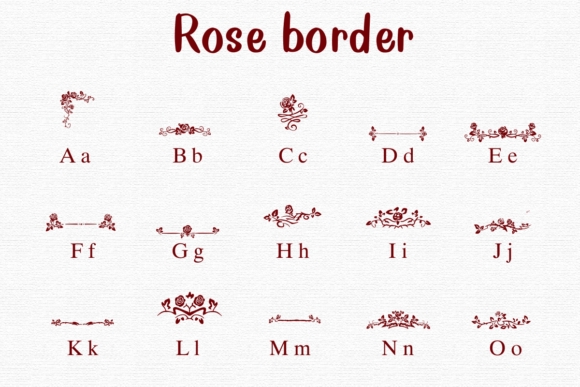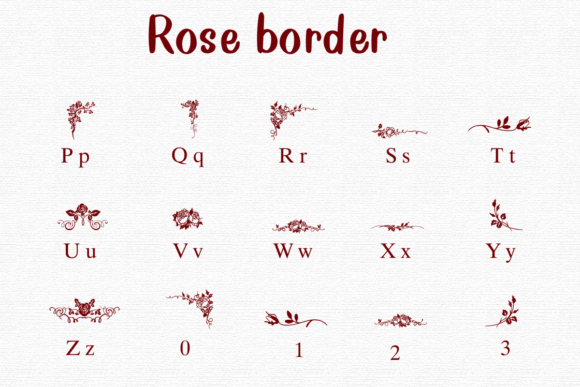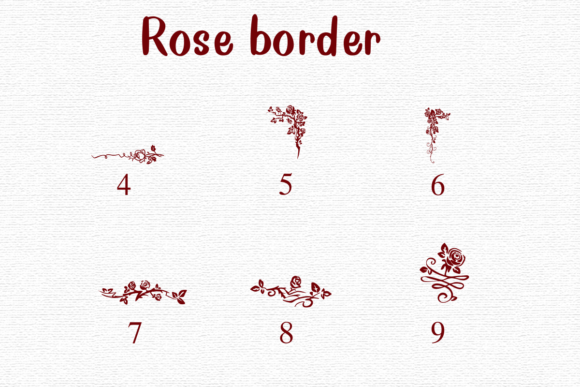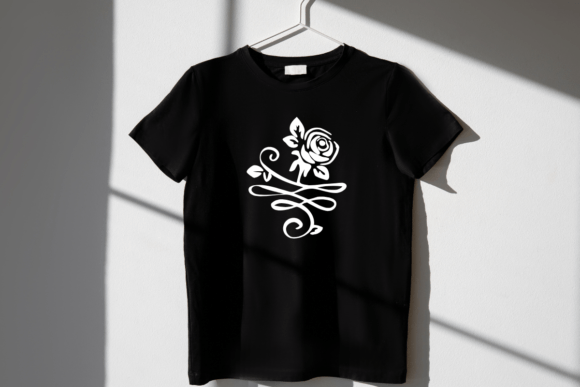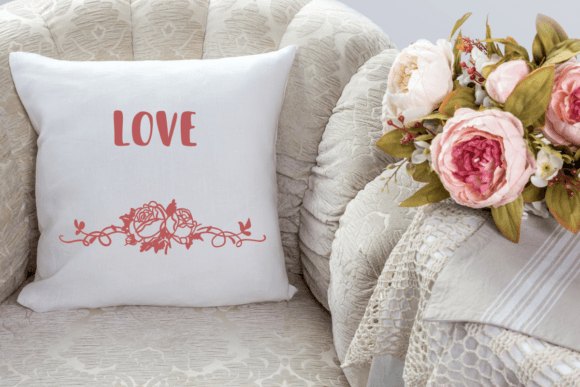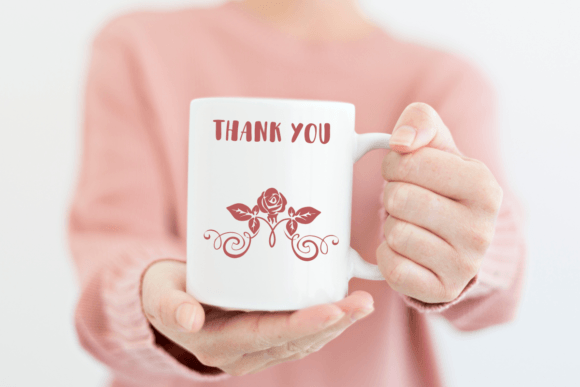
Introduction to Rose Border Font
As I sat at my desk, staring at a blank canvas, I knew exactly what my design needed – a touch of elegance and whimsy. I wanted to create a piece that would transport my audience to a serene garden, surrounded by lush greenery and vibrant blooms. That’s when I stumbled upon the Rose Border Font – a game-changing design resource that added an extra layer of sophistication to my work.
The Rose Border Font is a free download that’s bursting with high-quality, rose-themed borders that can be used to elevate any creative project. With its beautiful, intricate designs, this font is perfect for adding a floral touch to your text and designs. Whether you’re working on a wedding invitation, a blog post, or a social media graphic, the Rose Border Font is an essential tool to have in your design arsenal.
What sets the Rose Border Font apart is its versatility – you can use it with a transparent background to create a delicate, watercolor effect or pair it with bold colors to make a statement. As a designer, I can attest to the value of having a resource like this at your fingertips – it’s a time-saver and a creativity booster all in one.
Key Features of Rose Border Font
- High-quality design: The Rose Border Font features intricate, hand-drawn details that will elevate any design to the next level.
- Transparent background: This font comes with a transparent background, allowing you to easily place it over any image or color.
- Size: This font is available in a single size, making it perfect for creating consistent designs.
- Resolution: The font is optimized for high-resolution designs, ensuring it looks great on any device or screen.
- Unique characteristics: The Rose Border Font features a unique blend of floral and border elements, making it a one-of-a-kind design resource.
Honest Review: Rose Border Font
I recently stumbled upon the Rose Border Font while searching for a free download to enhance my creative project. I was excited to see if this font would meet my expectations.
After exploring the font, I found that it works well in ✨ various design contexts, particularly for creating invitations, wedding decorations, and other events that require a touch of elegance. The high-quality design makes it perfect for any project where you need a beautiful, delicate border.
- ✨ Beautiful design: The intricate details of the font make it a great choice for adding a touch of sophistication to your design.
However, I did find a few limitations: ⚠️ the font is not suitable for large-scale text, and it may not be as versatile as some other fonts. Additionally, the font is a bit delicate, so it may not hold up well to extreme resizing.
Overall, I was impressed with the Rose Border Font, and I would recommend it to designers looking for a high-quality, elegant font for their creative projects.
Rose Border Font
Tips for Getting the Most Out of Rose Border Font
To get the most out of the Rose Border Font, use it with a transparent background to create a beautiful and elegant design. You can also combine it with other design elements to create a unique and creative project.
The Rose Border Font is commonly used in wedding invitations, birthday cards, and other creative projects that require a touch of elegance and sophistication. It’s also a great design resource for social media graphics and flyers.